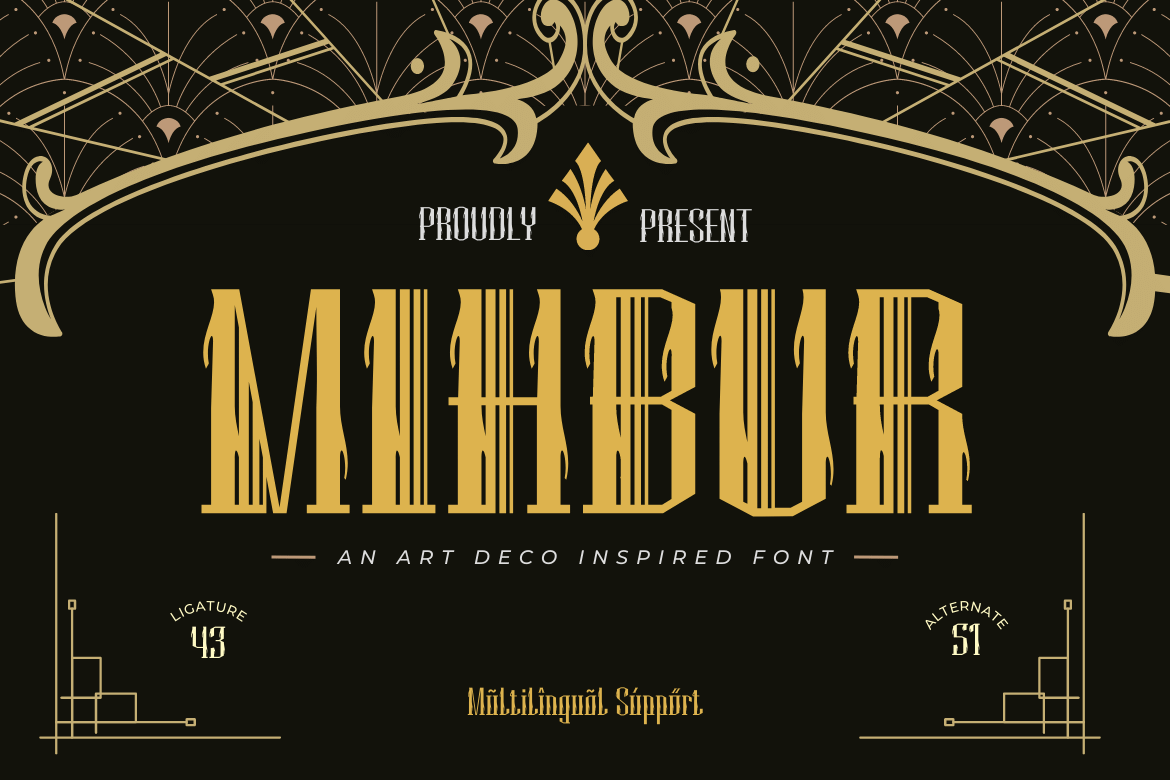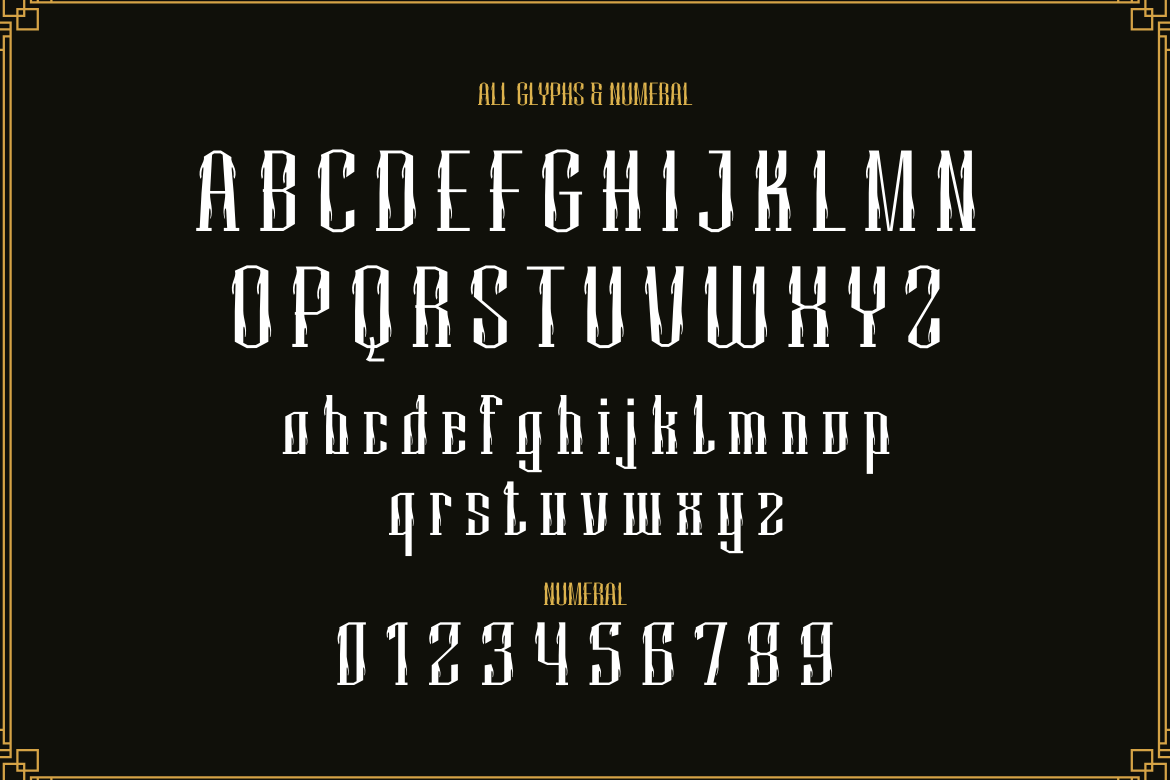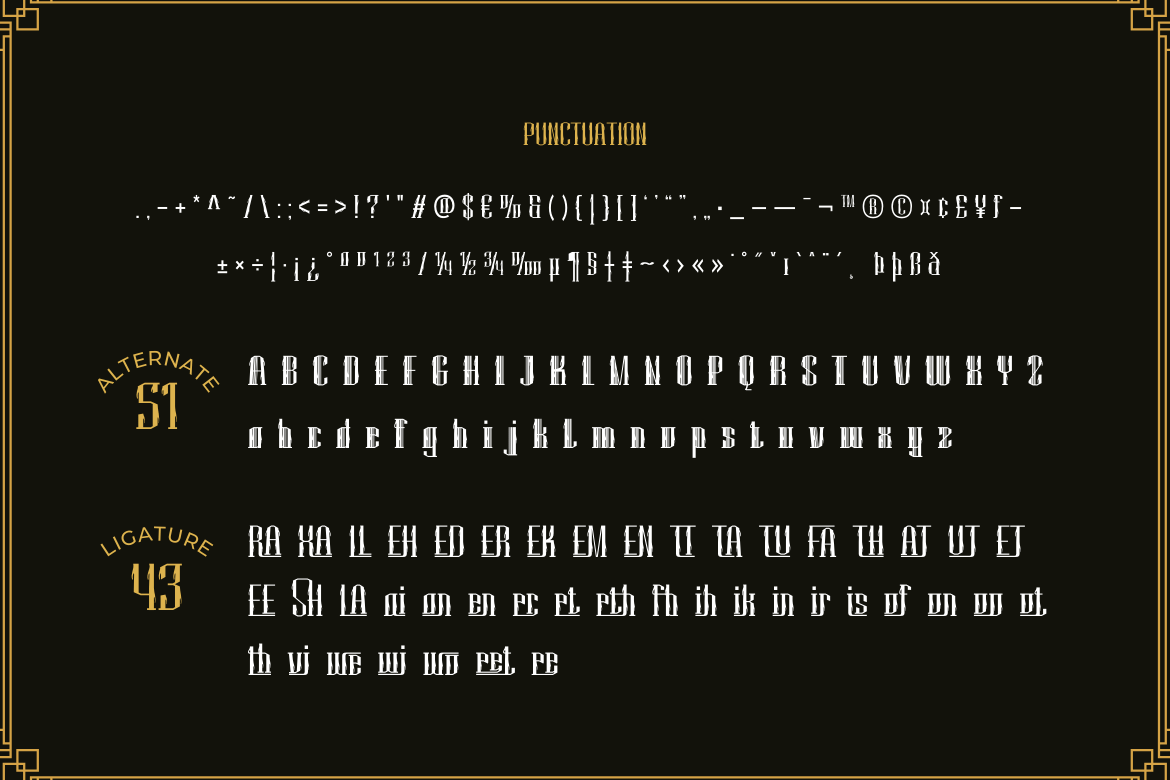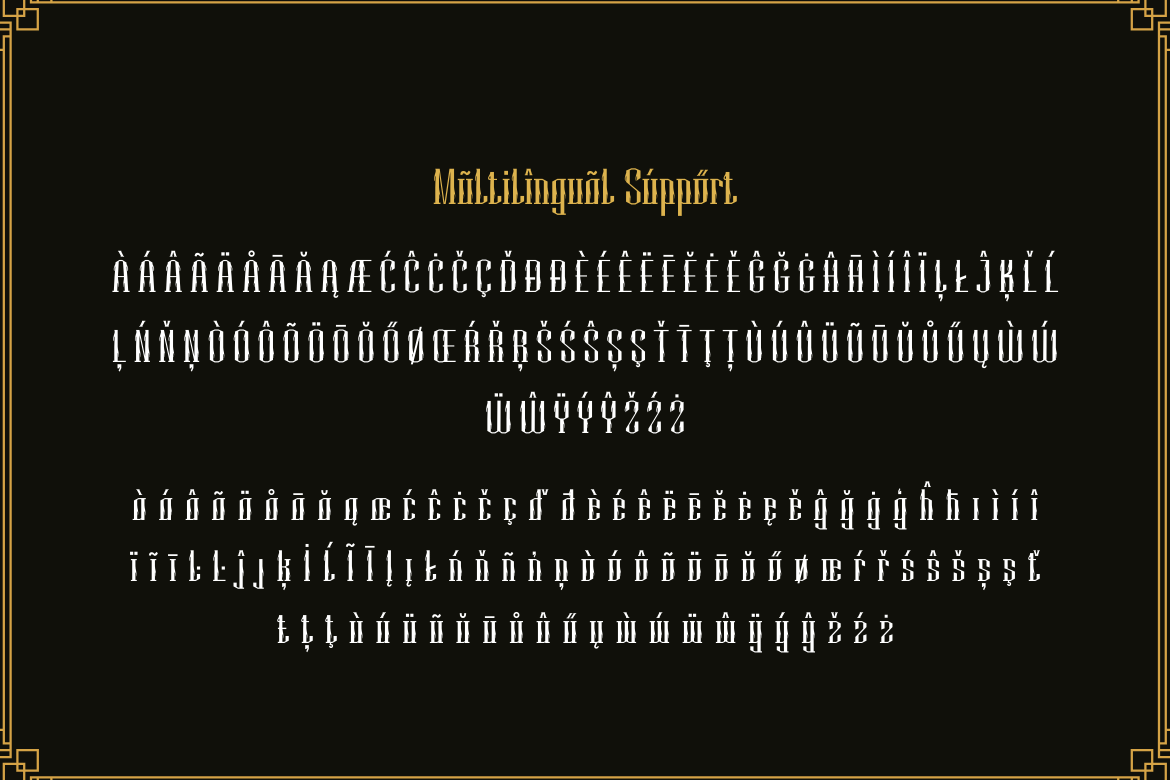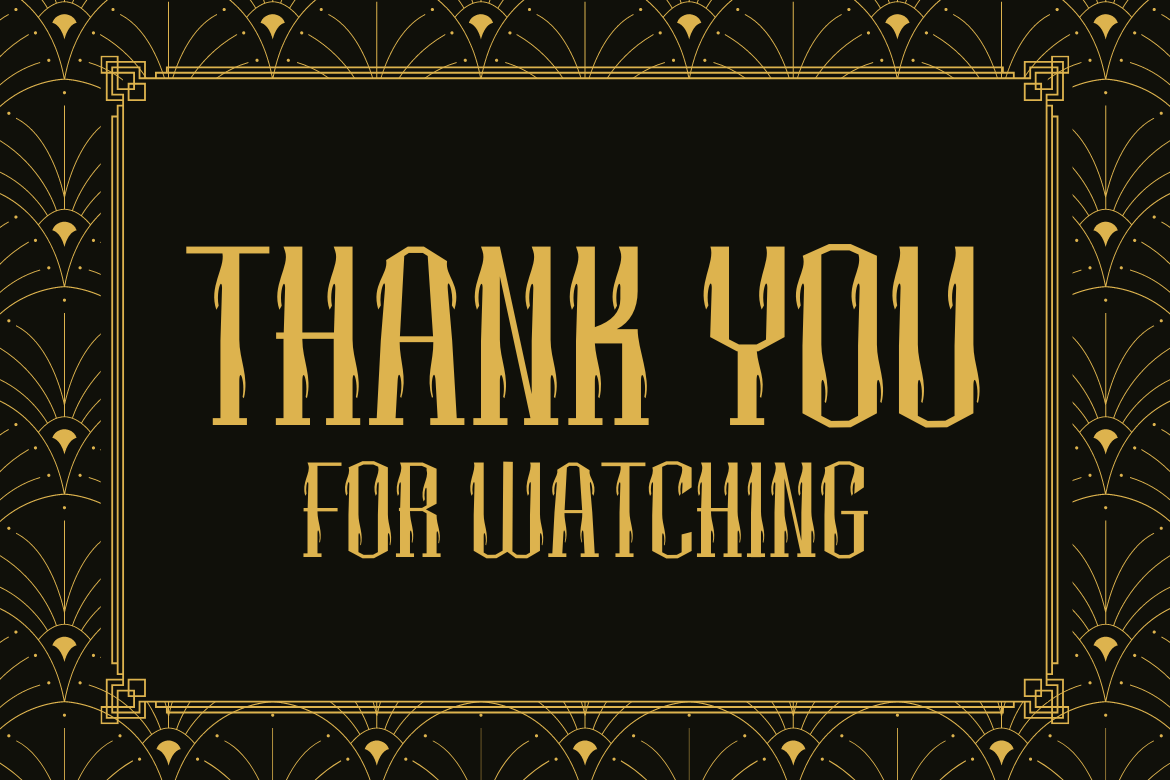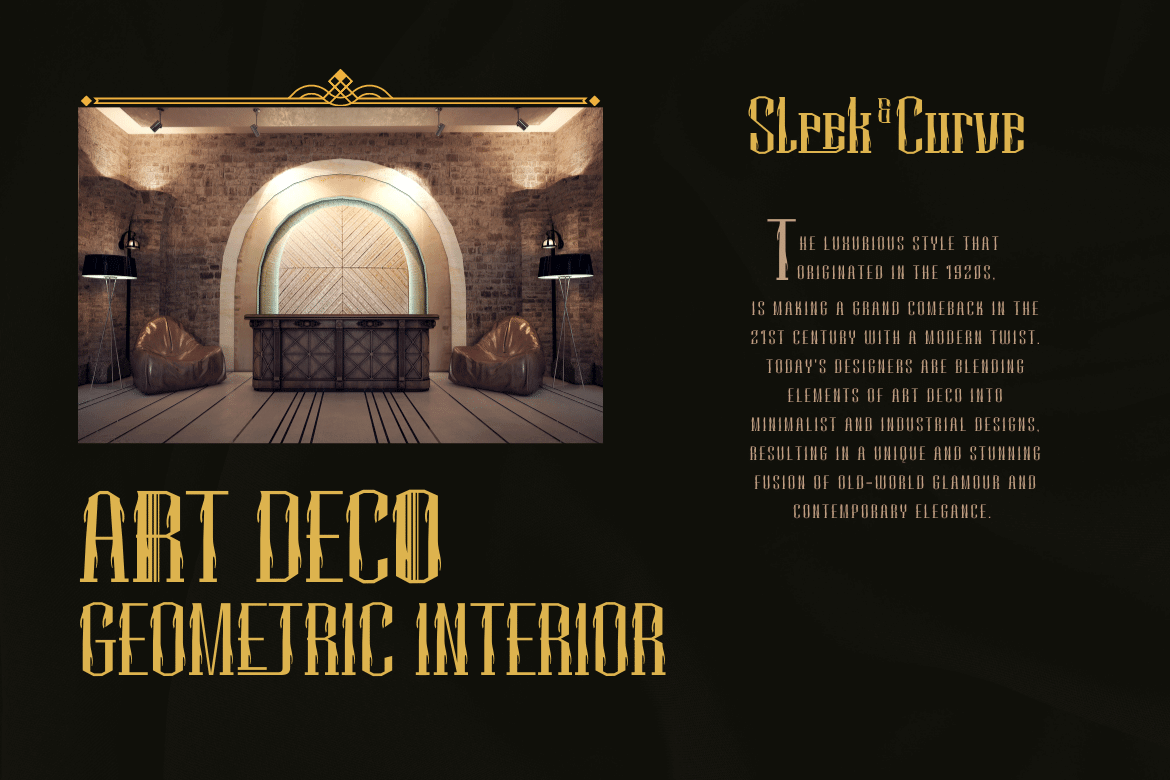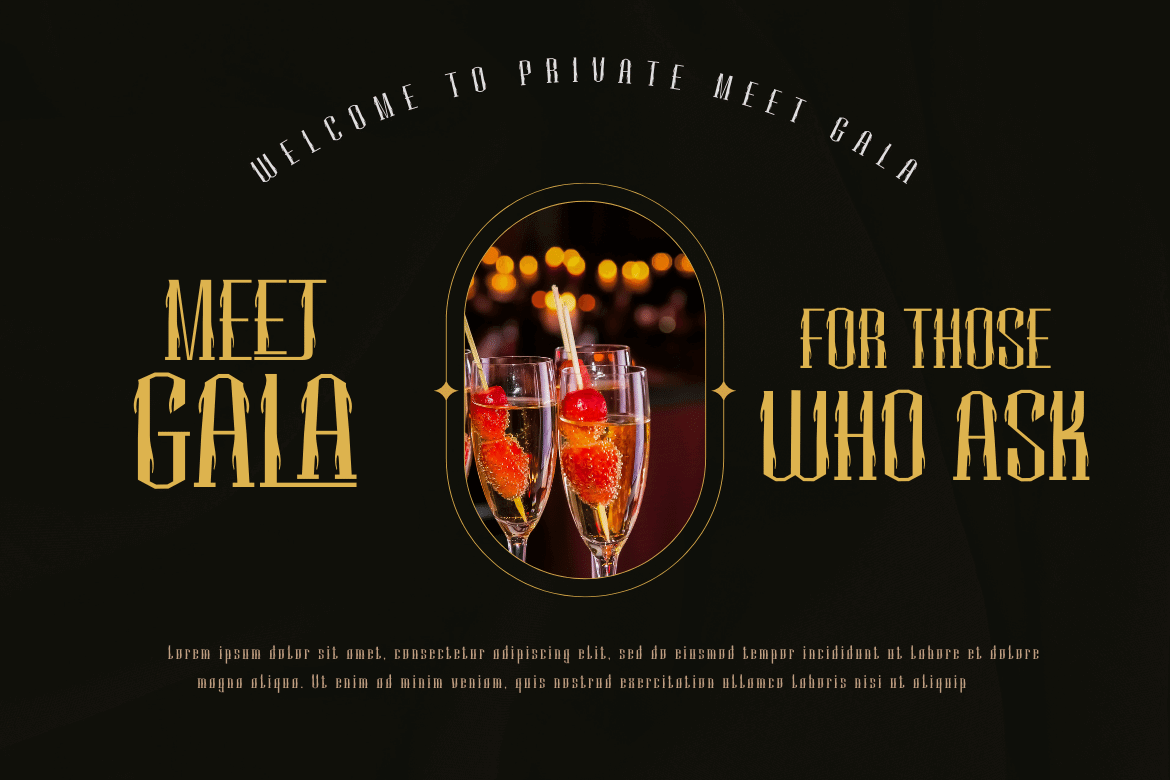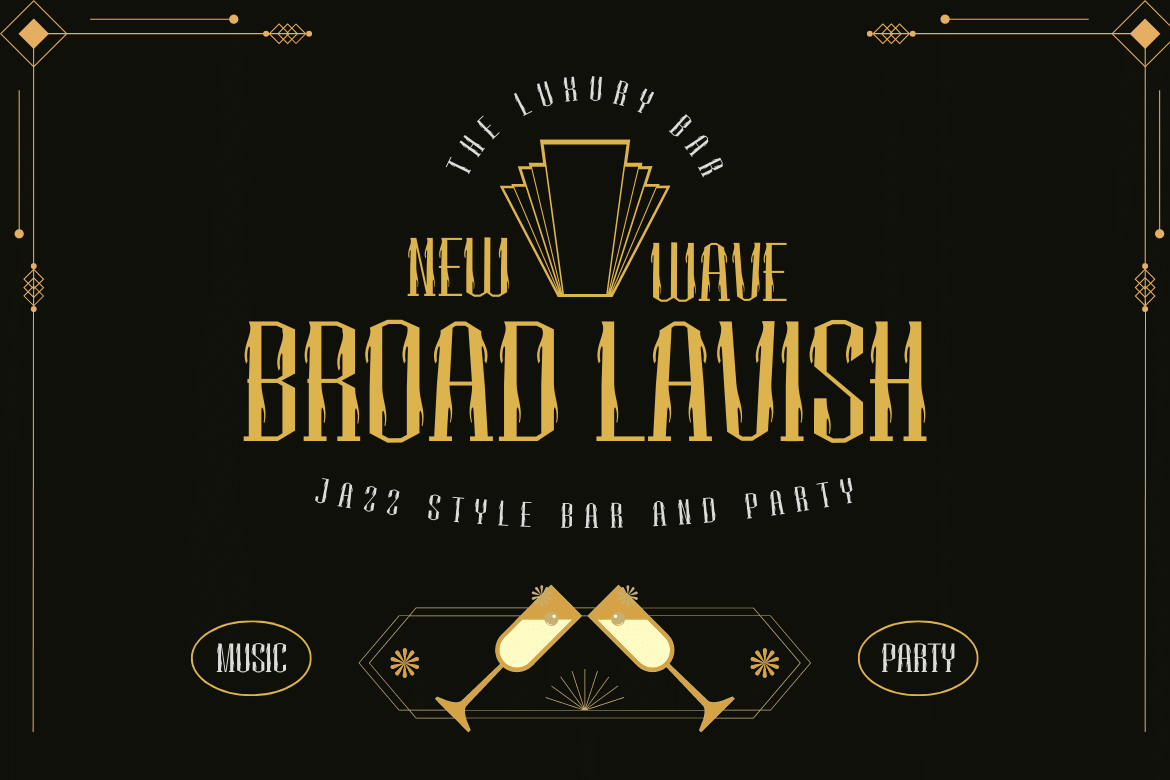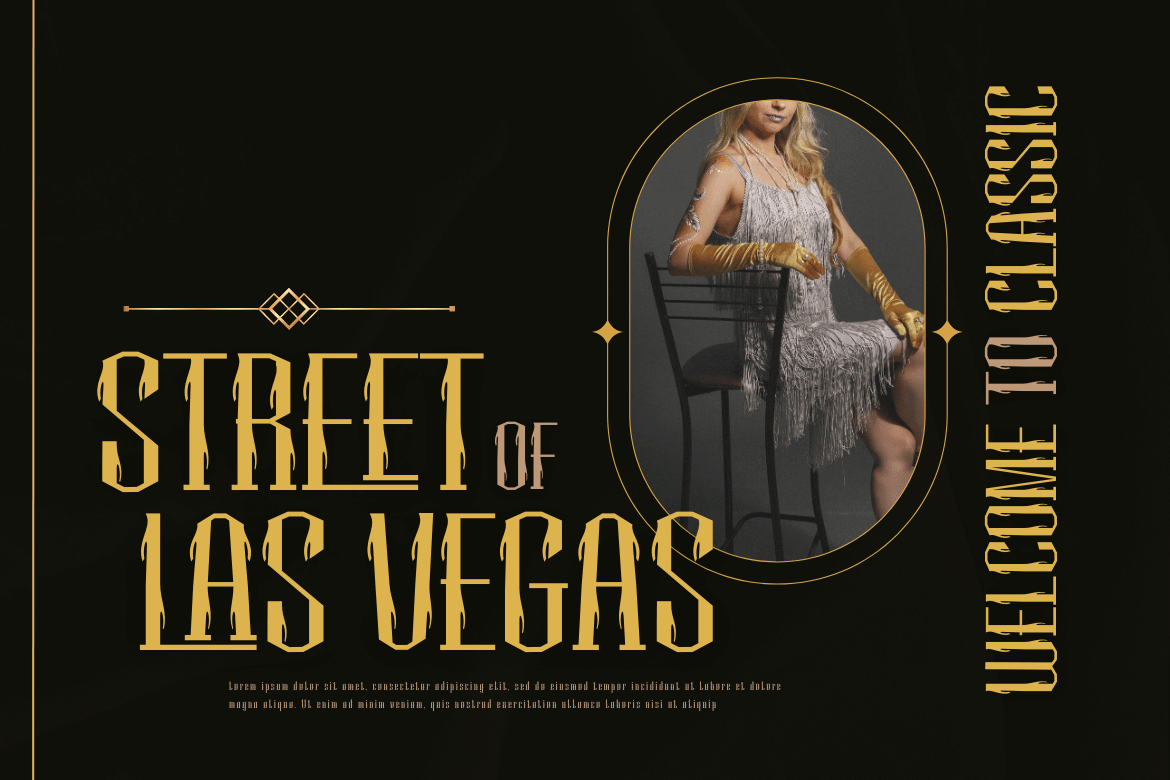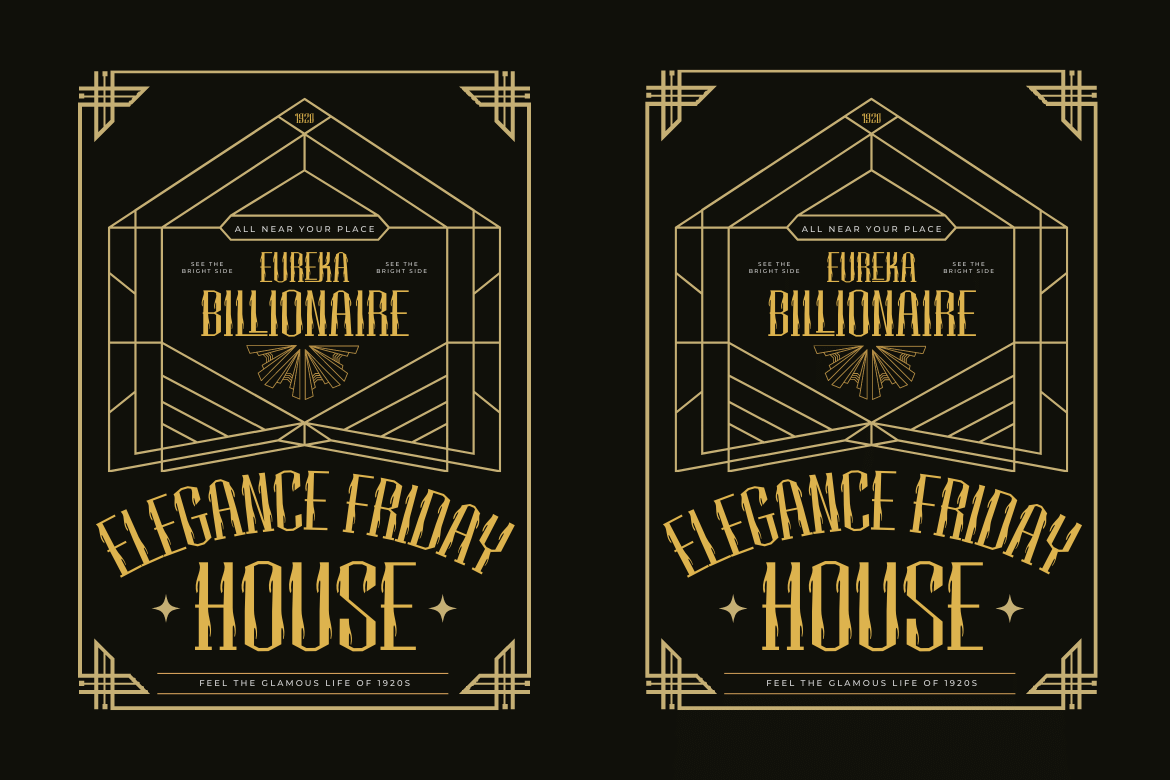
Mihbur | Art Deco Font
Introducing Mihbur, an Art Deco-inspired font that exudes elegance and sophistication. With its sleek lines and geometric shapes, this font captures the essence of the Art Deco movement while also offering a modern twist.
Mihbur comes equipped with 51 alternate characters and 43 ligatures, giving you plenty of options to make your designs truly unique. Plus, it’s multilingual, making it a versatile choice for any project.
Whether you’re designing invitations, posters, or branding materials, Mihbur is the perfect font to add a touch of vintage glamour to your work. So why settle for a plain font when you can elevate your designs with Mihbur? Try it out today and see the difference for yourself.